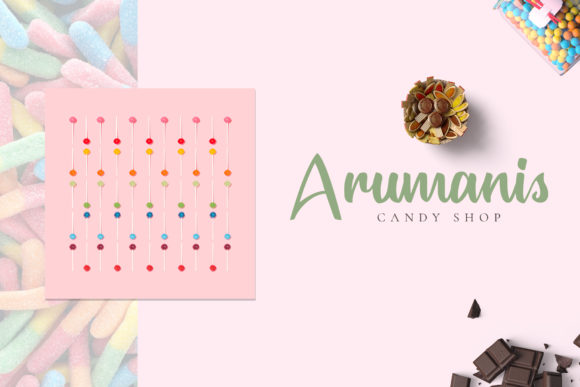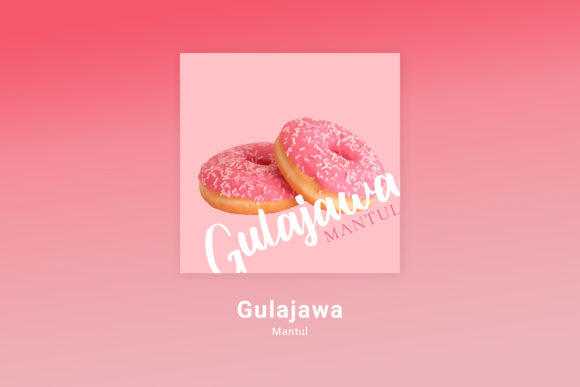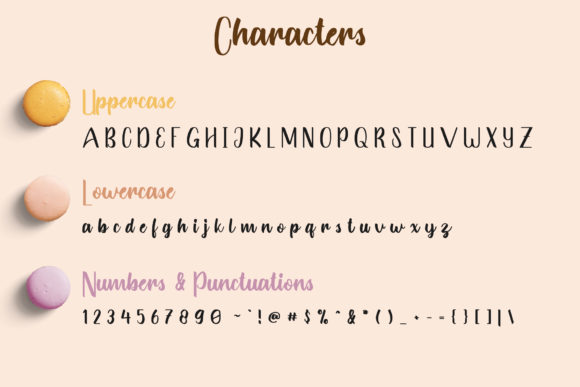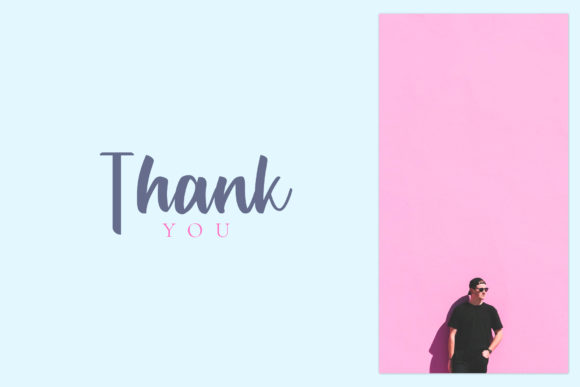
HomeScript FontsBahenoja Font Script Fonts Bahenoja Font FacebookXPinterestWhatsApp Bahenoja Font Poster 2 Bahenoja Font Poster 3 Bahenoja Font Poster 4 Bahenoja Font Poster 5 Bahenoja Font Poster 6 About Bahenoja Font Bahenoja is a fresh handwritten font. It’s perfect for branding, social media posts, logos, posters and much more! DOWNLOAD ON CREATIVE FABRICAThis font is sold and delivered by Creative Fabrica. Font Canyon may earn a commission if you buy through this link. People also explored Old Love Font Flawless Stone Font Faster Stroker Font Valentine Font Et Cetera Next Technology Font Homework Font Staymore Font Nadya Bella Font 338 0 TagsBahenoja Font Previous articleCalliandra FontNext articleAutograph Font LEAVE A REPLY Cancel reply Comment: Please enter your comment! Name:* Please enter your name here Email:* You have entered an incorrect email address! Please enter your email address here Website: Save my name, email, and website in this browser for the next time I comment. Personal Use Free Dandelions Bloom Personal Use Free Read more about this font Rembank Personal Use Free Read more about this font Banana Valentine Personal Use Free Read more about this font Black Friday Personal Use Free Read more about this font BLOG Top 10 Handwritten Fonts That Elevate Your Designs Top 10 Handwritten Fonts That Will Elevate Your Designs Handwritten fonts bring a warm, personal touch to every creative project. Whether you're designing logos, invitations,... 5 Fonts That Will Dominate Design Trends in 2026 Free vs Paid Fonts: Why Investing in Premium Fonts Is Worth It Exploring Font Trends